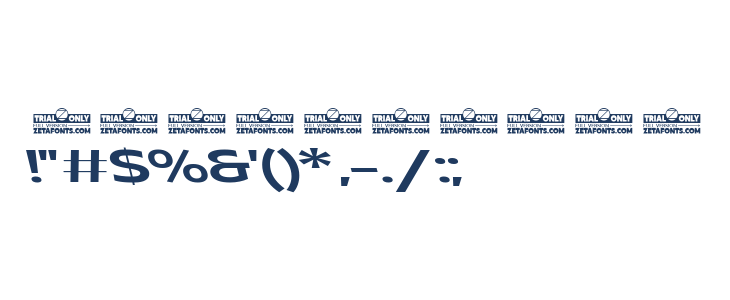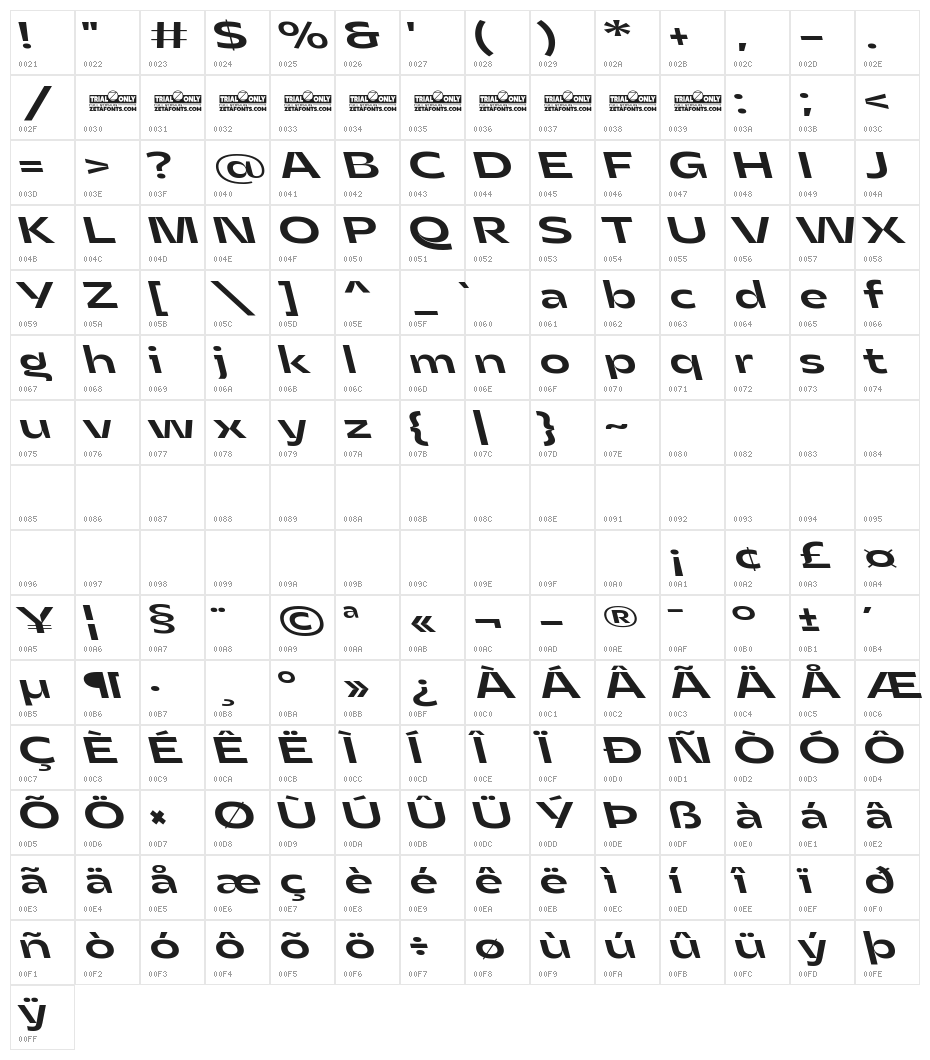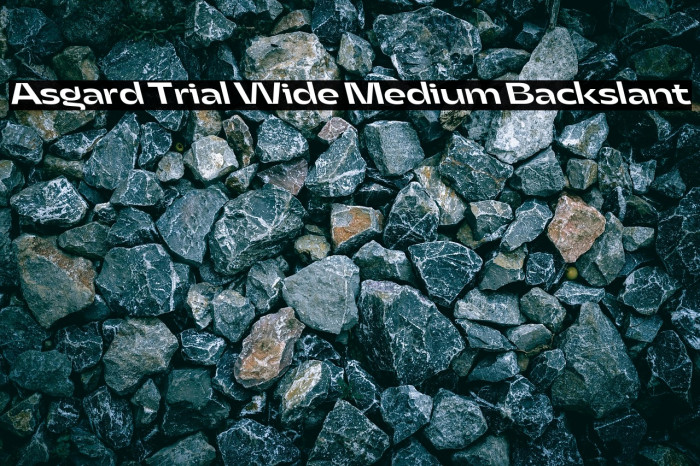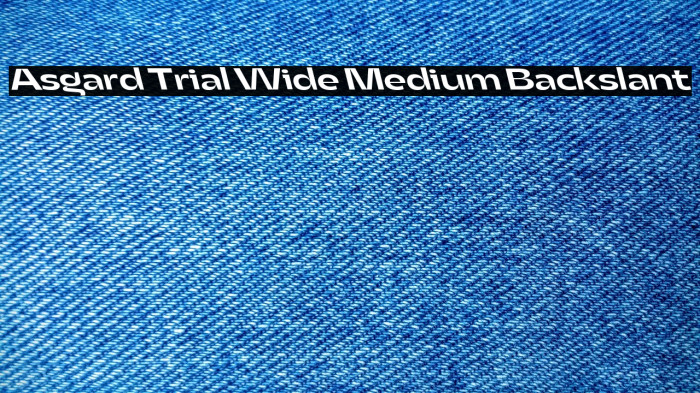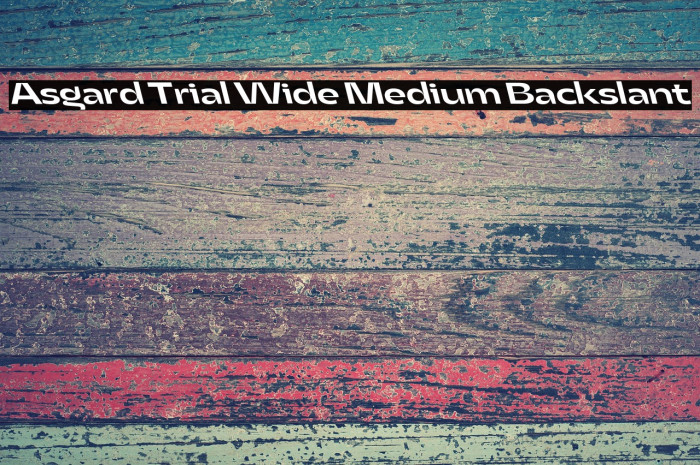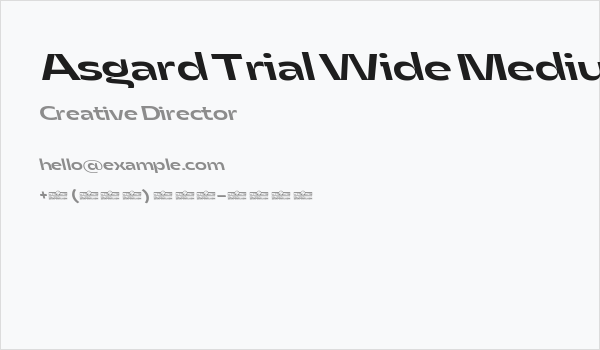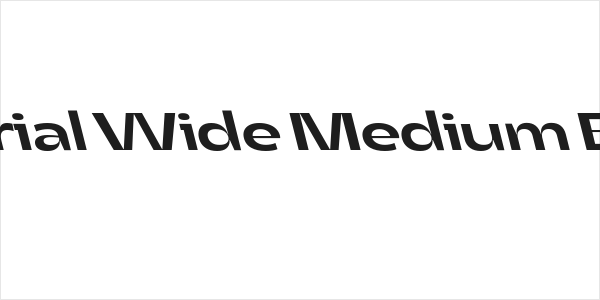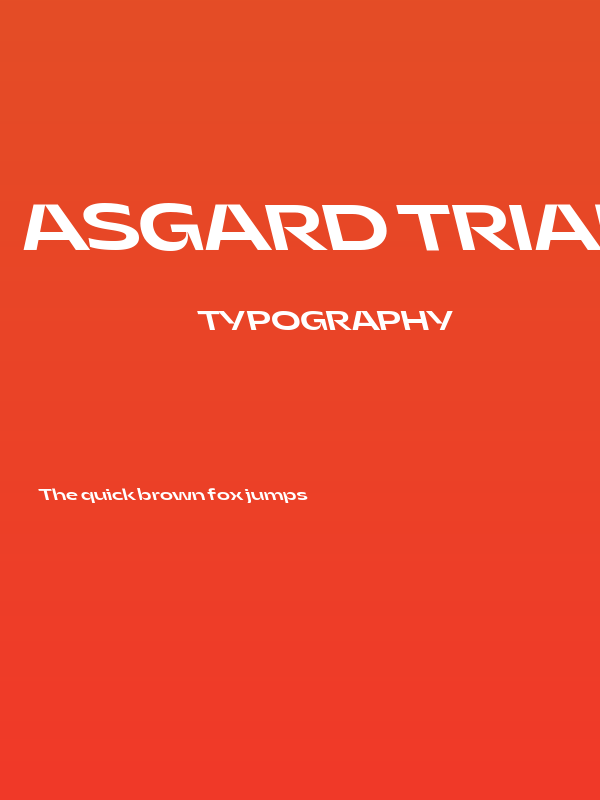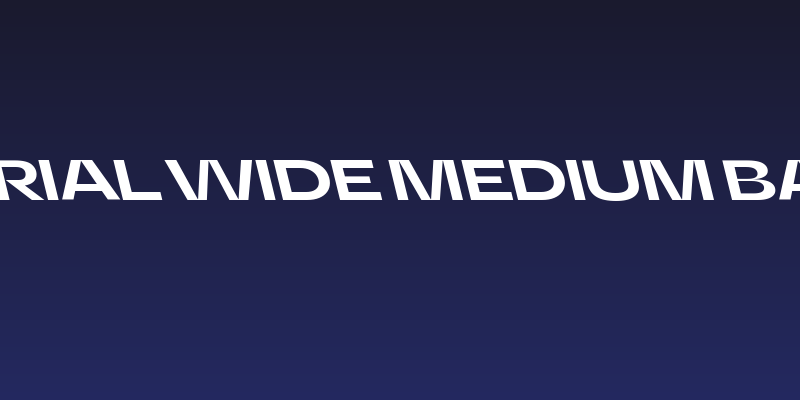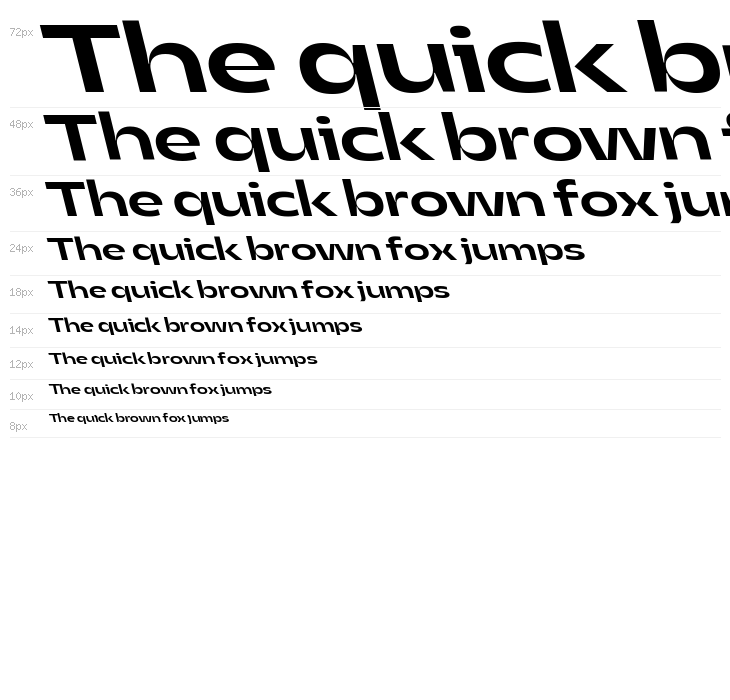
Asgard Trial Wide Medium Backslant Font
Asgard Trial Wide Medium Backslant Description
This font features a distinctive backslant style, giving it a dynamic and forward-moving appearance. The characters are wide and medium-weight, creating a bold presence without being overwhelming. The uppercase and lowercase letters maintain a consistent width, contributing to a uniform look. The font's geometric shapes and clean lines make it suitable for modern designs. Special characters are well-integrated, maintaining the overall aesthetic. The font's unique slant and wide stance make it stand out, ideal for projects that require a contemporary and assertive look.
| Proposed Projects | Ideal for branding, advertising, and headlines where a modern and assertive look is desired. |